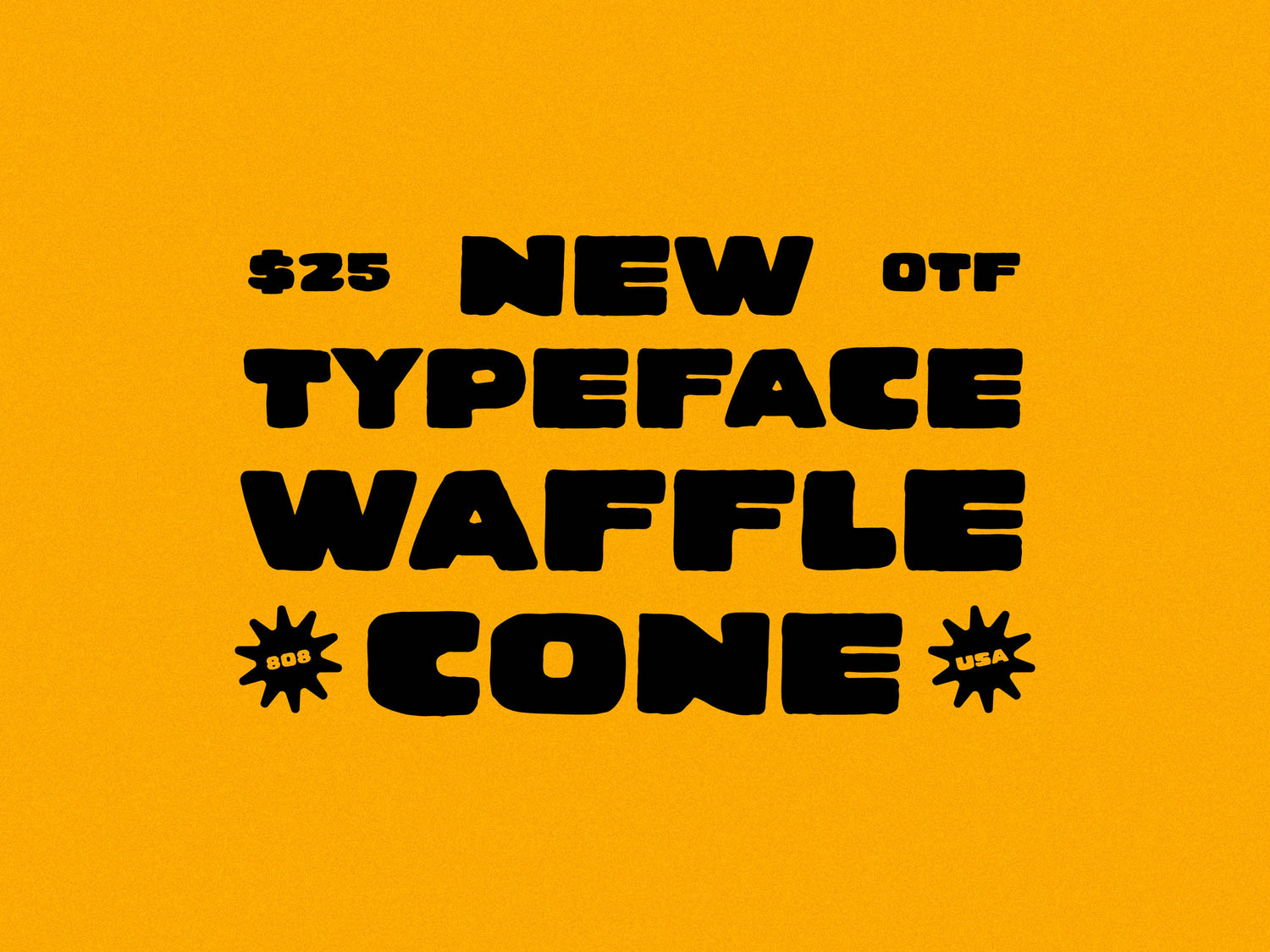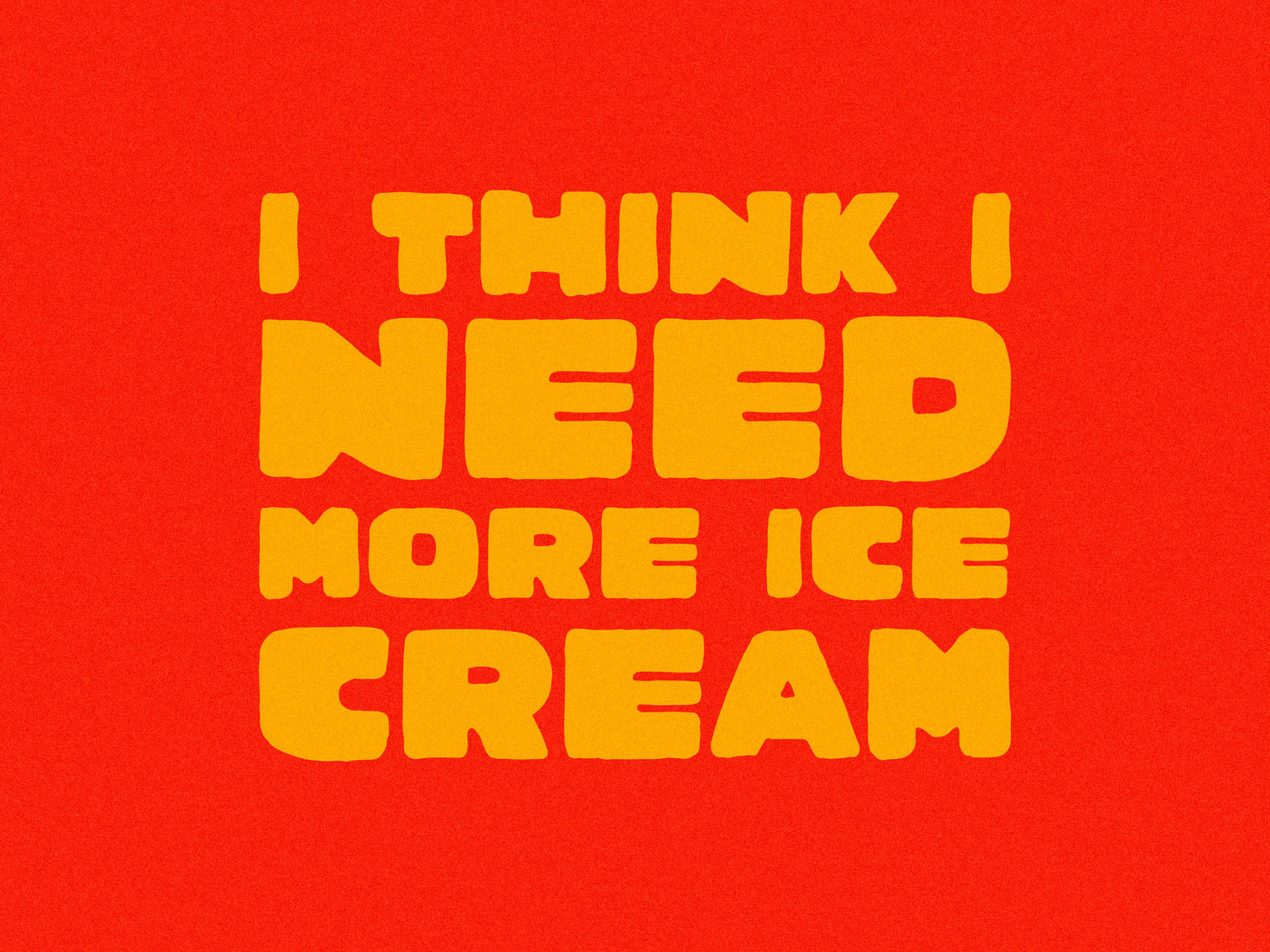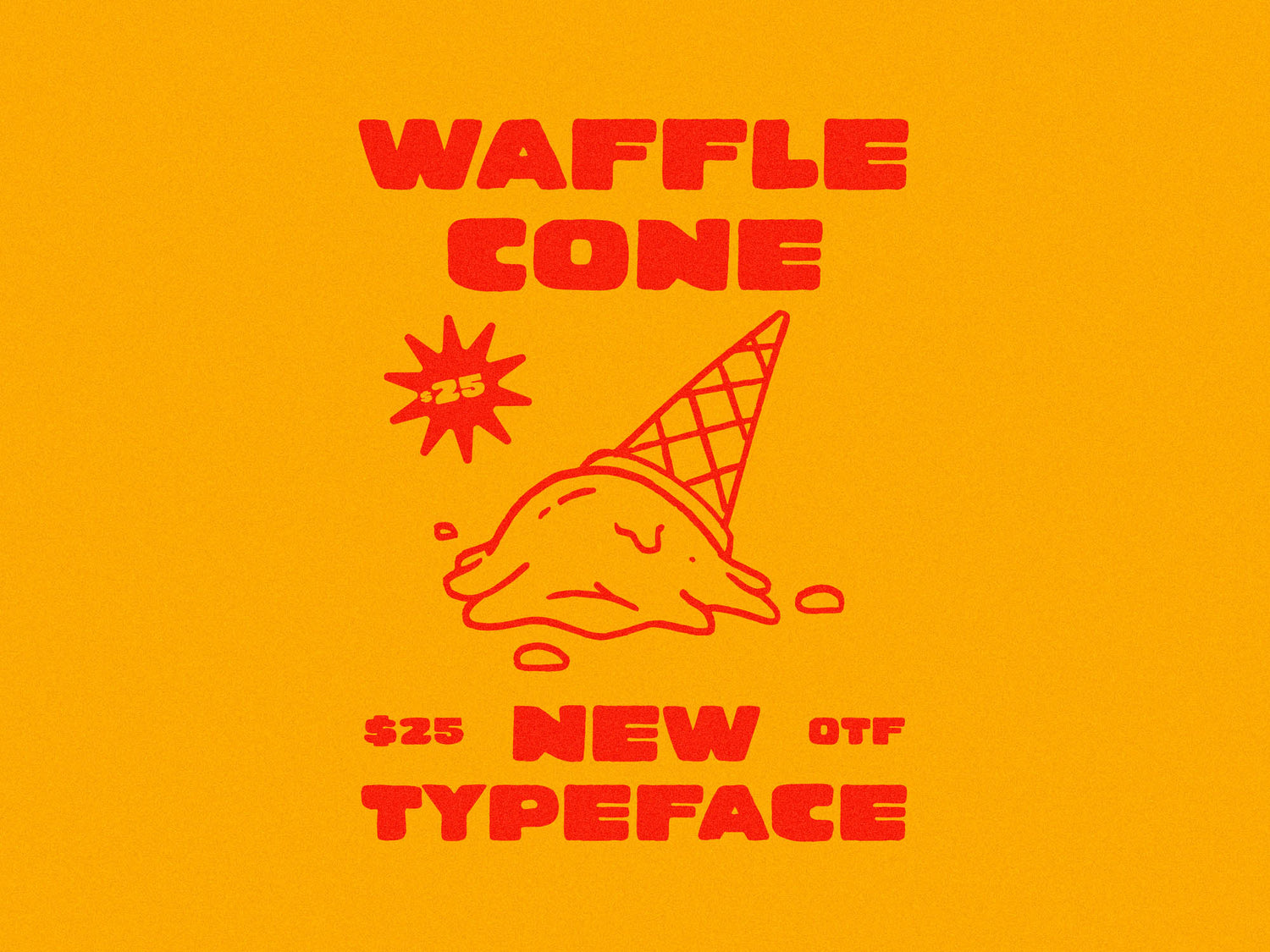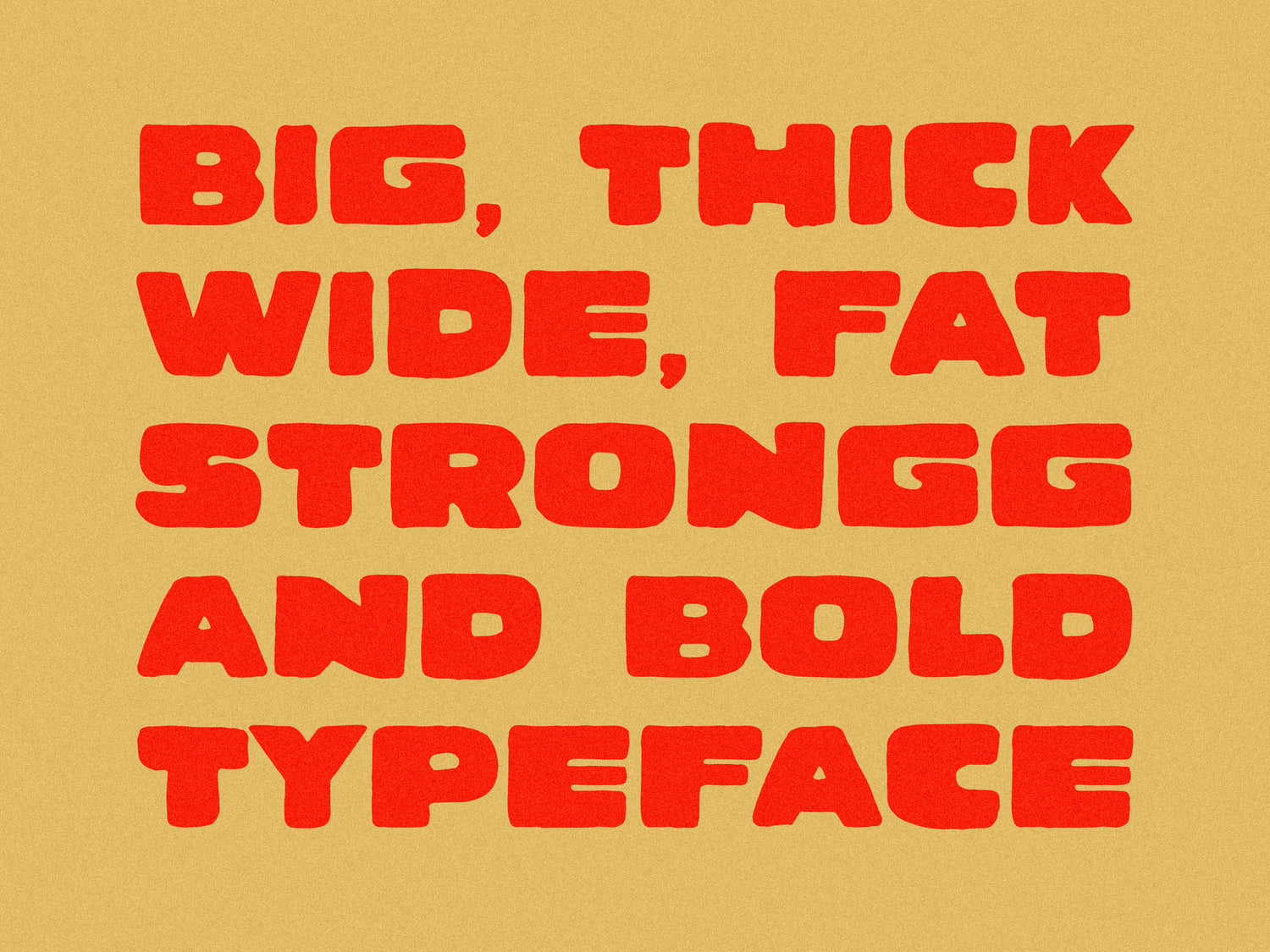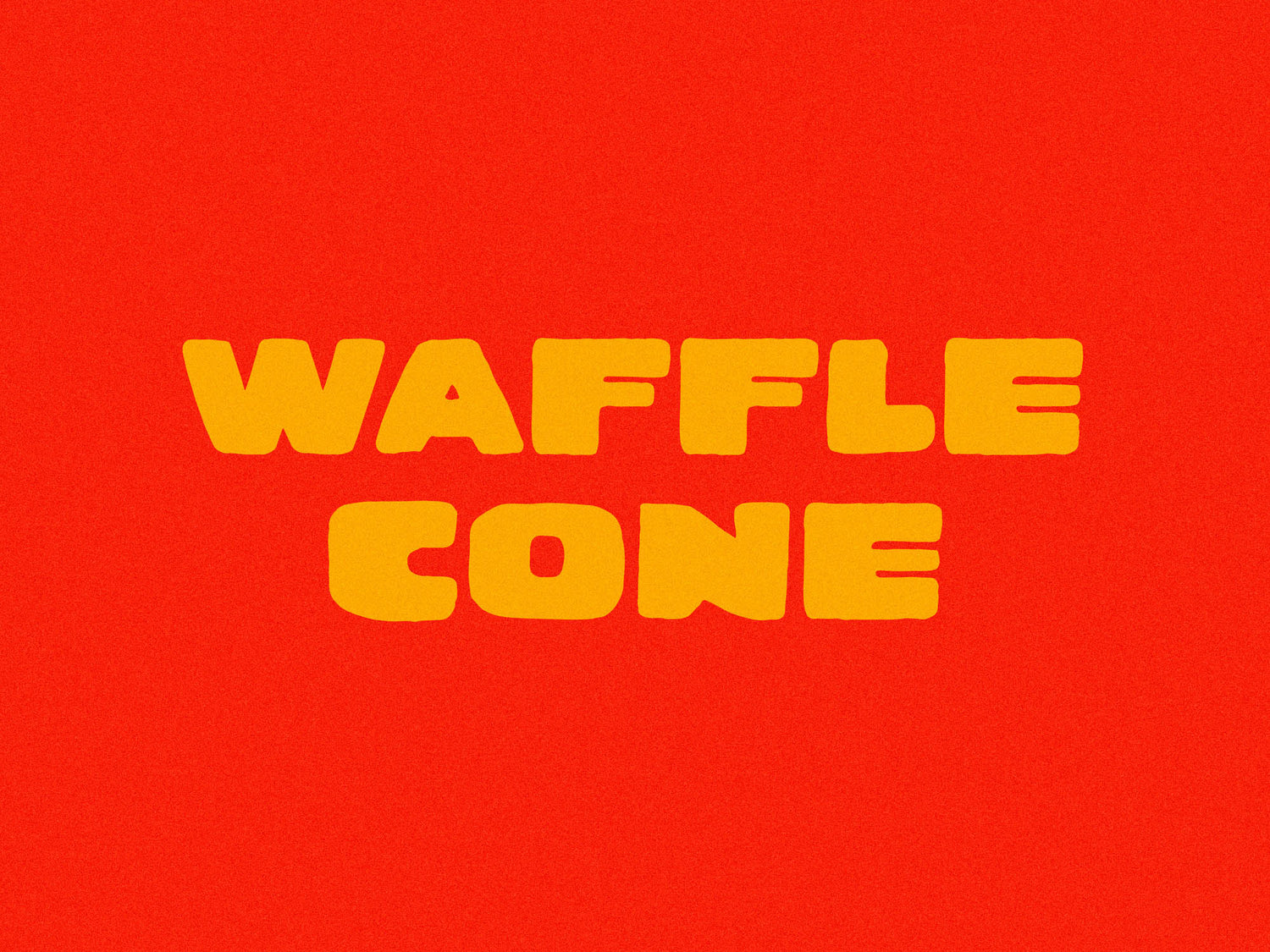
Waffle Cone
Not everything needs to be soft-spoken.
These last few months we’ve knocked out some real beauties, but it’s time to swing the other direction: Thick, wide, and impossible to ignore (just like your mom) Waffle Cone was made to do the heavy lifting — This is the typeface you use when subtle just isn’t it.